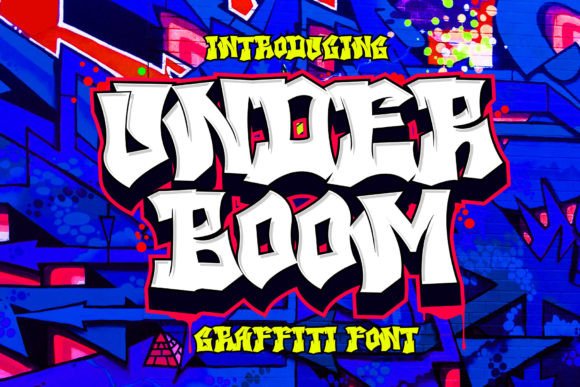
Unleash your inner rebel with Under Boom, a display font that's as edgy as it gets. This urban graffiti masterpiece, hailing from the creative minds at Cikareotype, oozes attitude with its sharp angles and bold demeanor.
Picture this: your music posters pulsating with raw energy, your apparel designs dripping with street-savvy style, your shirts and streetwear screaming individuality. Under Boom is the ultimate catalyst for edgy expression, transforming your creations into captivating canvases of urban rebellion.
Dive deeper into the world of Under Boom, where the unique flair of "Black Squad" reigns supreme. Its jagged edges and untamed spirit make it an irresistible choice for projects that demand a touch of darkness or the raw energy of urban graffiti.
Don't let your words be confined by ordinary fonts. Let Under Boom ignite your imagination and unleash your creativity. Embrace the boldness, defy the norm, and watch as your designs soar to new heights of edginess.